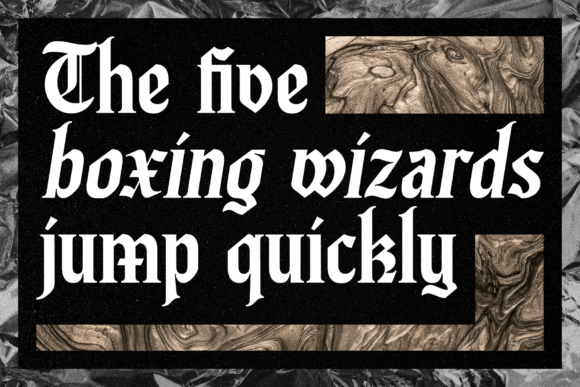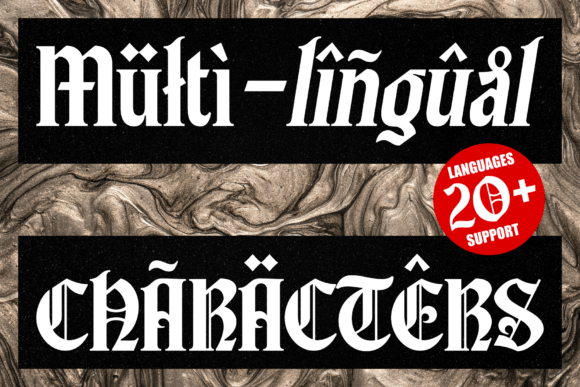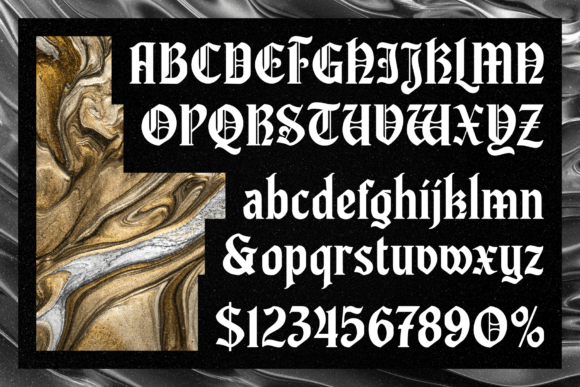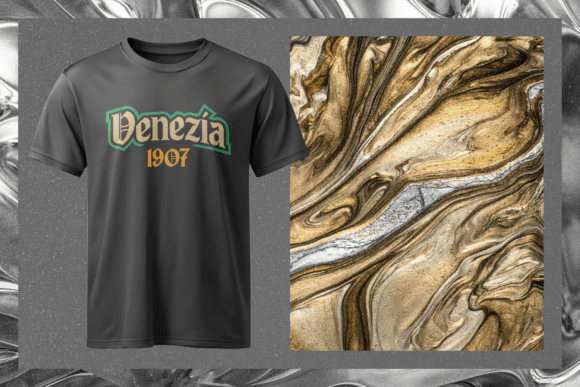
Introduction to Letinegra Font
Remember that moment when you’re working on a design project, and you need that one perfect font to make it pop? The words on the page seem dull, and you know exactly what would elevate it – a bold, classic, and striking font. That’s where Letinegra Font comes in, a modern blackletter font inspired by the old English era.
Designed to make a statement, Letinegra Font is perfect for designers who want to add a touch of sophistication to their creative projects. Whether you’re working on a headline, poster design, logotype, or apparel design, this font is sure to deliver. And with its availability in two styles – Regular and Italic – you can choose the perfect fit for your project. Plus, with multilingual characters, you can communicate with your audience in their native language.
Key Features of Letinegra Font
- High-quality, unique design ideal for creative projects
- Font size: 1,024 glyphs, including a wide range of characters and symbols
- Perfect design resource for designers and artists working on digital and print projects
- Resolution: Optimized for high-resolution displays and print materials
- Unique, handcrafted design elements that add a personal touch to any creative project
Honest Review: Letinegra Font
As a designer, I’m always on the lookout for unique and high-quality fonts to add some flair to my creative projects. The Letinegra Font caught my eye, and I decided to give it a try.
What works well: ✨ The Letinegra Font is a great addition to any design project. Its sleek, modern design makes it perfect for creating a professional look. I also appreciate that it comes in a free download format, making it easily accessible to designers of all levels. The font also features a transparent background, which gives me more flexibility when using it in my designs.
- Modern and sleek aesthetic
- Transparent background for added flexibility
However, there are a few limitations: ⚠️ The font is not as versatile as some other fonts I’ve used, and it may not be suitable for all types of projects. Additionally, the font is only available in a limited number of styles, which may limit its use in certain situations.
Overall, I’m impressed with the Letinegra Font, and I would recommend it to designers who are looking for a modern and high-quality font to add to their design resource library.
Tips for Getting the Most Out of Letinegra Font
Experiment with different font sizes and colors to create a unique design. Use the transparent background feature to create a clean and simple design. Combine Letinegra Font with other design resources to create a visually appealing project.
Common Use Cases for Letinegra Font
Letinegra Font is ideal for creative projects that require a clean and simple design, such as brochures, flyers, and business cards. Its high-quality design and transparent background feature make it suitable for presentations and documents that require a professional touch.